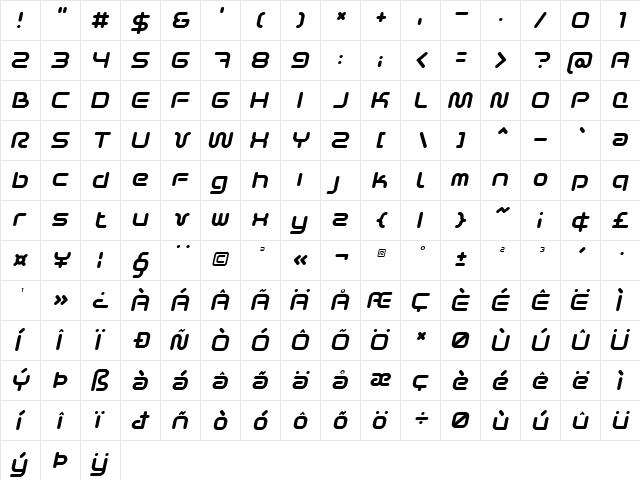
Sci Fied 2002 Italic
Design Context for Sci Fied 2002 Typeface
Sci Fied 2002 channels digital-age aesthetics through its sharp, structured letterforms — ideal for brands that want to signal innovation. The slanted form adds forward momentum and visual energy.